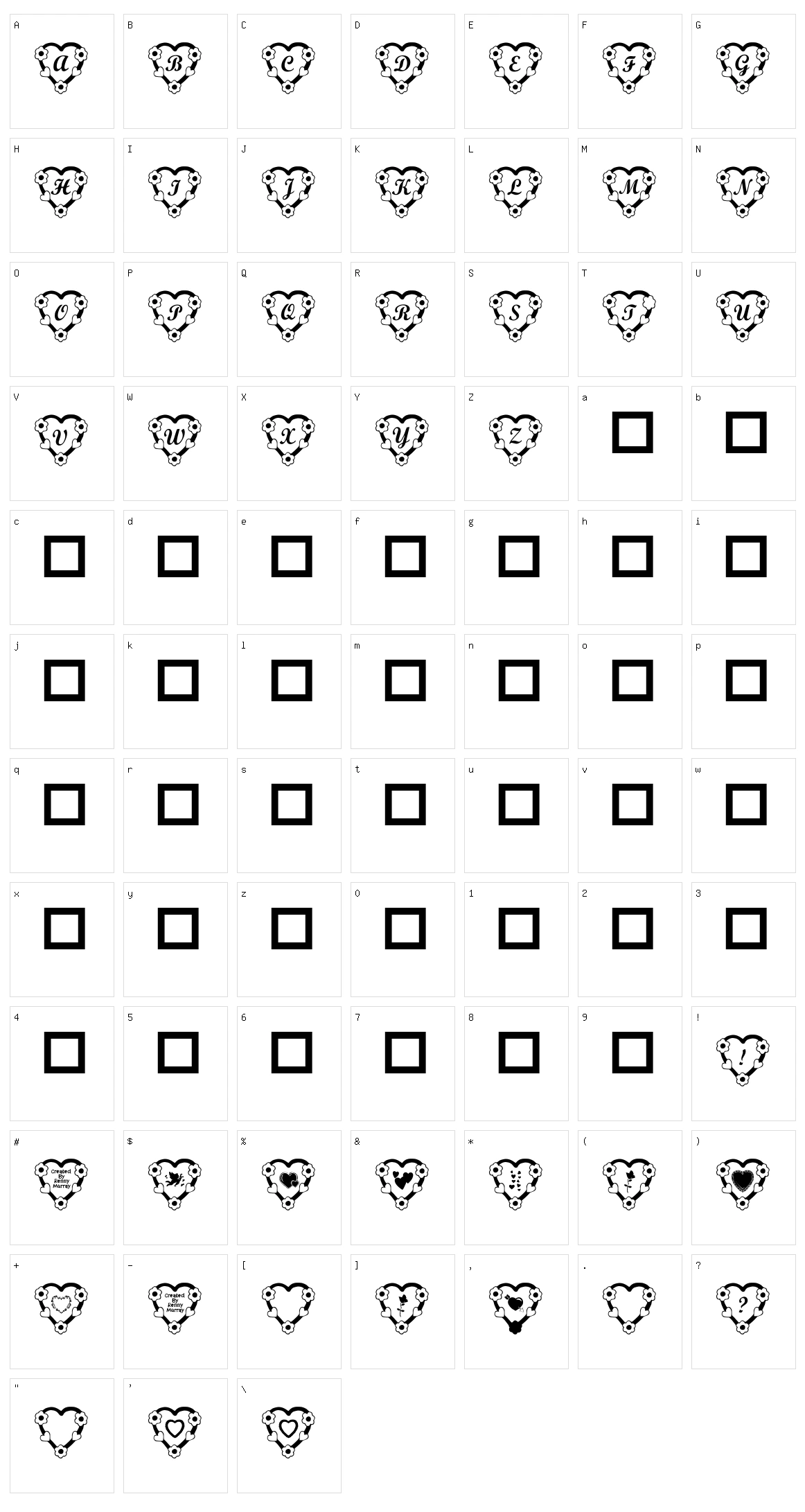
The free font RMFlwrHt is carefully designed by Renny Murray, showcasing a thoughtful balance of creativity and usability and falls under the Valentine font style. When you download the ZIP file, it contains only 12.92 KB of font files, making it lightweight and quick to download. Please review the license details below to understand permitted usage and distribution rights. If license information is not available, we recommend using this font for personal projects only or contacting the author directly for commercial usage permissions.